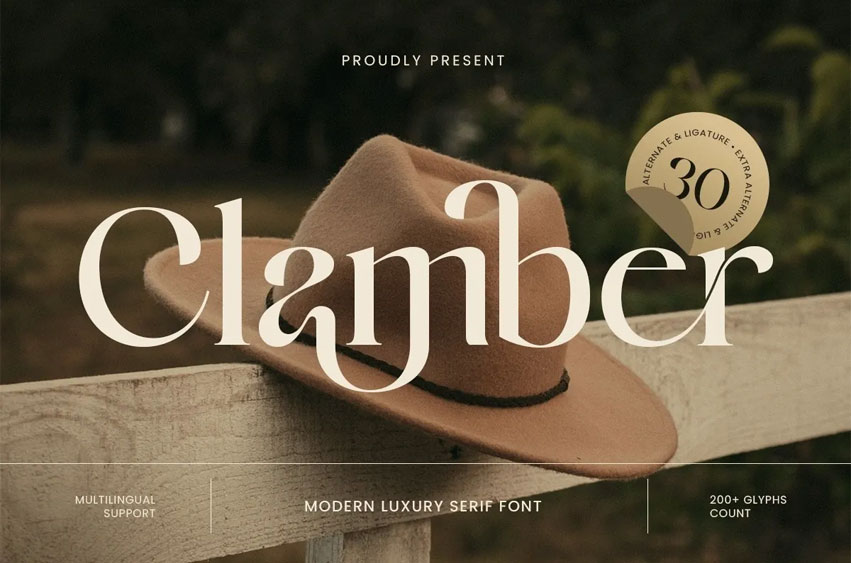
Clamber Font
Clamber Font is a contemporary high-end serif typeface that aims at providing upscale sophistication with clean cut, modern style. The details of a typeface are polished and serif, all proportions are balanced, the high-end rhythm is confident, which makes it a high-end visual tone and timeless, stylish, and instantly brand-ready.
Crafted on the pampered typography, Clamber is suitable with logos, wordmarks, brand identities systems, magazine headlines, web site headers, packaging, labels, invitations, signage, presentations, luxurious marketing images. The sophisticated design of it maintains layouts clear and legible and gives a classy atmosphere both on the digital and print designing.
You may be building a fashion house, creating a beauty brand, designing a high-quality package, or creating an editorial design with a luxurious touch, Clamber offers a current serif base that causes your text to look high-level, professional, and memorable.